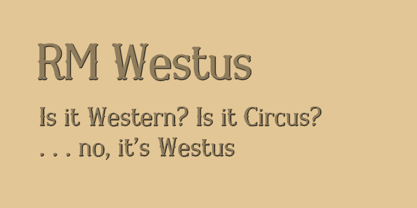
RM Westus
by Ray Meadows
RM Westus Font Family was
designed by
Ray Meadows and
published by Ray Meadows.
RM Westus contains
4
styles.
About RM Westus Font Family
Drawing inspiration from both the Western and Circus genres, this design offers a wide variety of uses as a display font. Due to the nature of this design there may be a very slight lack of smoothness to the curves at extremely large point sizes (around 200 pt and above).
Designers: Ray Meadows
Publisher: Ray Meadows
Foundry: Ray Meadows
Design Owner: Ray Meadows